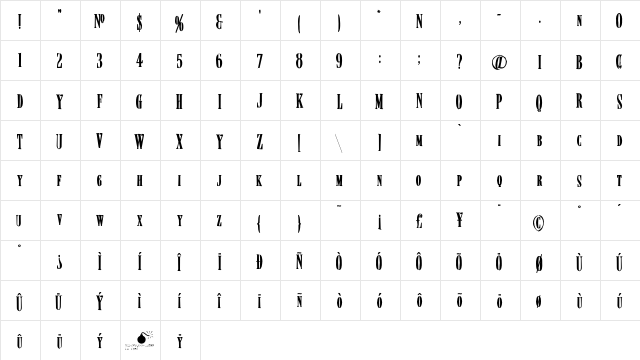
LHF Conservatory Regular
| Foundry | John Studden |
| Designer | John Studden |
Design Context for LHF Conservatory Typeface
LHF Conservatory offers clean, dependable letterforms without strong stylistic allegiance, making it a practical choice for designers who need flexibility.